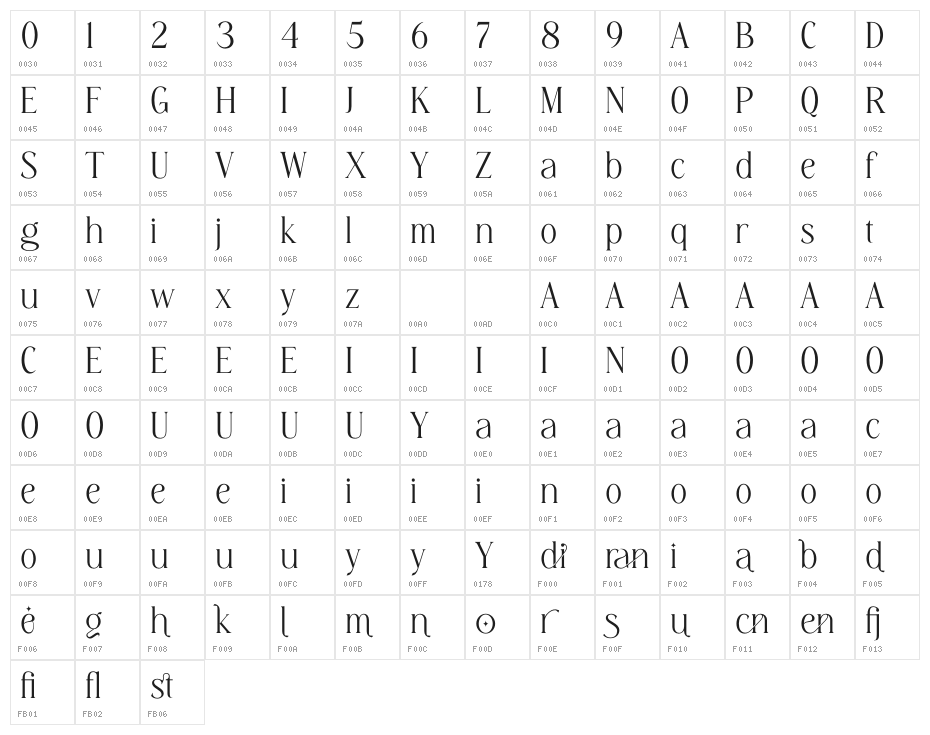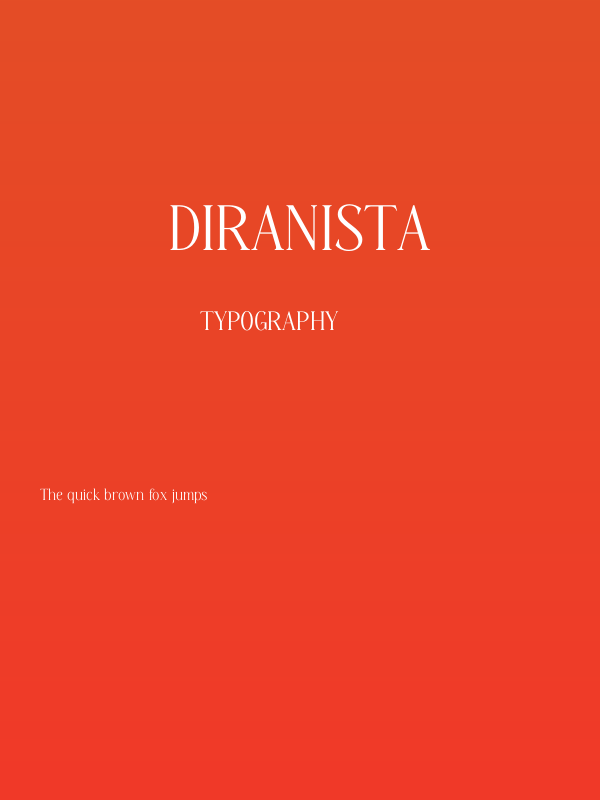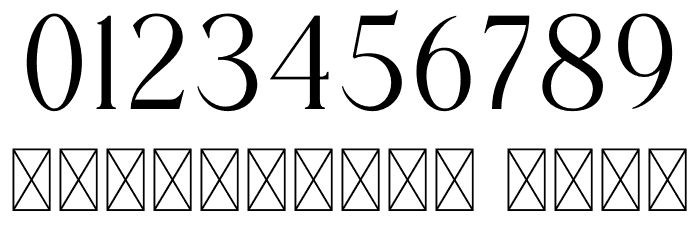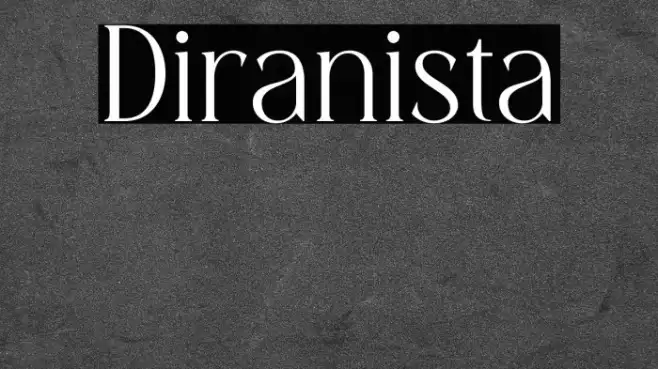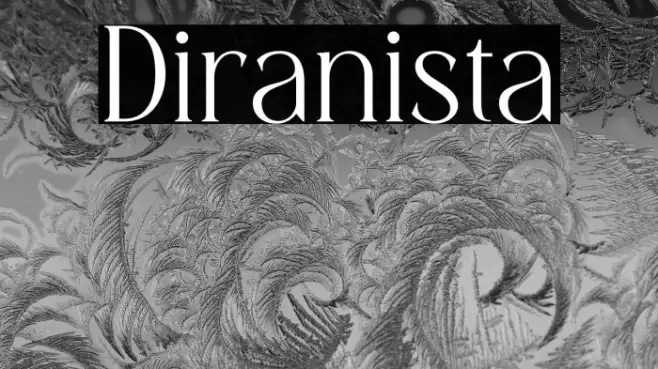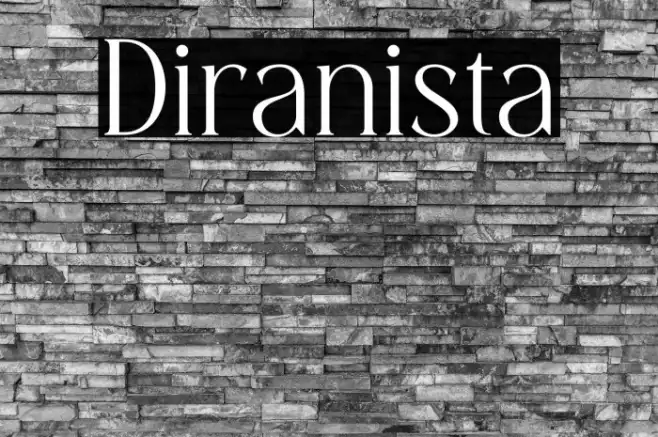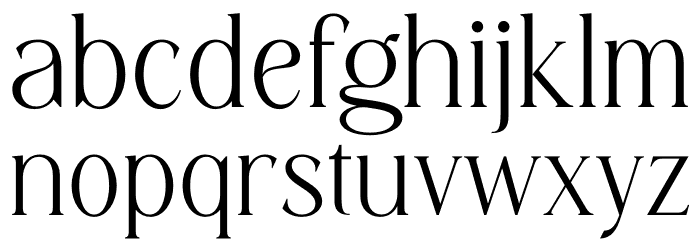
Diranista Font
Diranista Description
This font exhibits a refined and elegant serif style, characterized by its thin, elongated serifs and high contrast between thick and thin strokes. The uppercase letters are tall and stately, while the lowercase letters maintain a graceful flow, making it suitable for sophisticated and formal applications. The numerals are clear and distinct, ensuring readability. The overall design is classic yet modern, offering versatility for various design needs.
| Proposed Projects | Ideal for editorial design, book covers, wedding invitations, and luxury branding. |